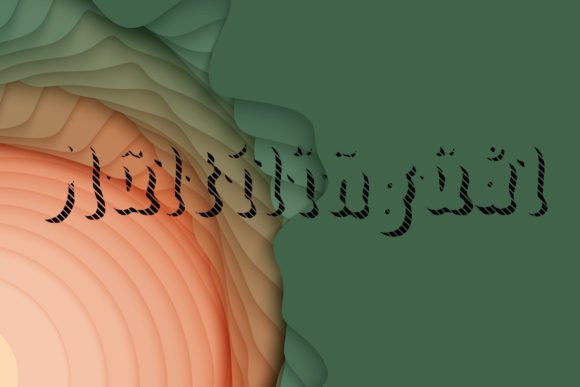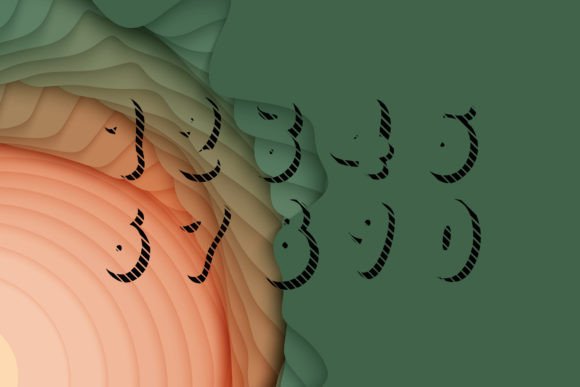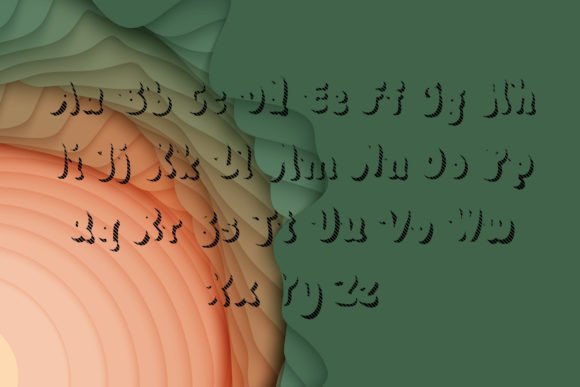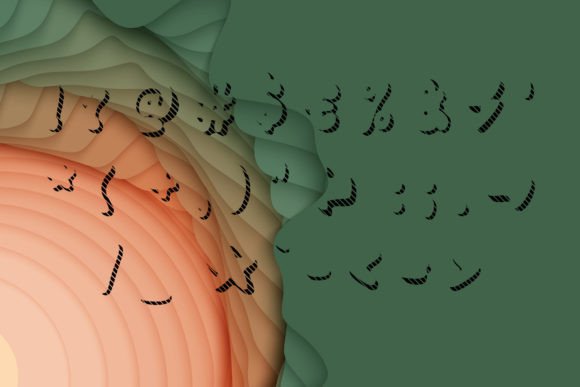
Introduction to Nuclear Font
As a designer, there’s nothing quite like that moment when a project finally comes together, and every element falls into place. The colors are vibrant, the typography is on point, and the overall aesthetic is simply stunning. But what sets your design apart from the rest? That’s where the Nuclear Font comes in – a cool and incredibly interesting display font that can elevate your creative project to new heights.
With its unique blend of futuristic and edgy vibes, the Nuclear Font is the perfect addition to any high-quality design resource. Whether you’re working on a free download or a paid project, this font is sure to make a statement. Its transparent background and high-quality design make it a valuable asset for designers looking to add a touch of sophistication to their work.
So, what makes the Nuclear Font so special? And how can you incorporate it into your next creative project? Let’s dive in and explore the world of this amazing font.
Nuclear Font
- High-quality font with a unique blend of futuristic and industrial elements, perfect for creative projects.
- Comes with a transparent background, allowing for easy layering and customization in design software.
- Designed to be scalable, with a resolution of up to 300 DPI, making it ideal for use in high-resolution designs.
- Perfect for designers and artists working on futuristic, sci-fi, or industrial-themed projects, adding a touch of nuclear-inspired style to their work.
Honest Review: Nuclear Font
As a designer, I’m always on the lookout for high-quality design resources to elevate my creative projects. I recently stumbled upon Nuclear Font, and I’m excited to share my honest review with you.
- ✨ High-quality design that’s perfect for modern and futuristic projects
- ✨ Transparent background option, allowing for easy layering and customization
- ⚠️ Limited font styles and variations, which may not be suitable for complex projects
- ⚠️ Some users may find the font size and spacing a bit inconsistent
Overall, I’m impressed with Nuclear Font’s potential as a design resource. While it may not be perfect, it’s a great addition to any designer’s toolkit. With a little creativity, you can achieve some amazing results using this font. If you’re looking for a modern and edgy font for your next creative project, Nuclear Font is definitely worth checking out.
Nuclear Font
Nuclear Font is commonly used in creative projects that require a bold, high-quality design element. Some common use cases include:
- Designing logos or branding materials
- Creating eye-catching social media graphics
- Developing professional-looking presentations or documents
Tips for Getting the Most Out of Nuclear Font
To get the most out of Nuclear Font, use it in conjunction with a transparent background to create a striking design element. You can also experiment with different font sizes and styles to add depth and interest to your designs.